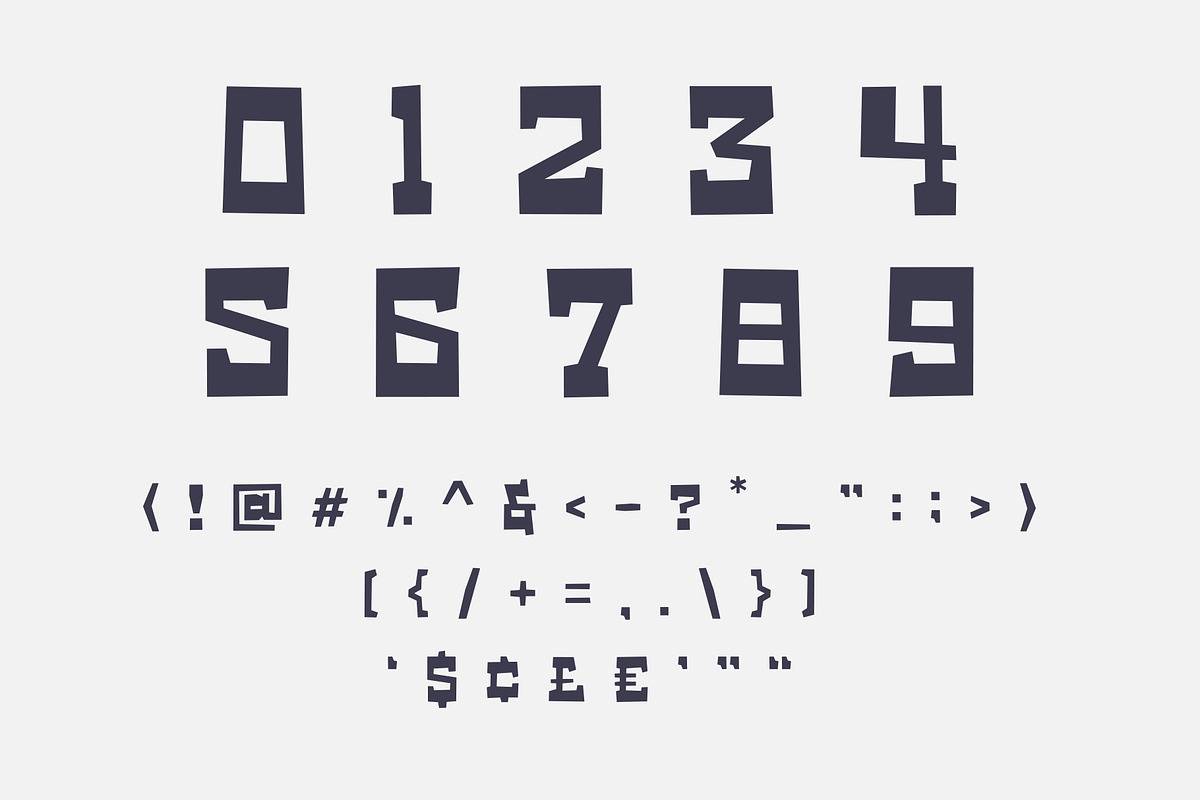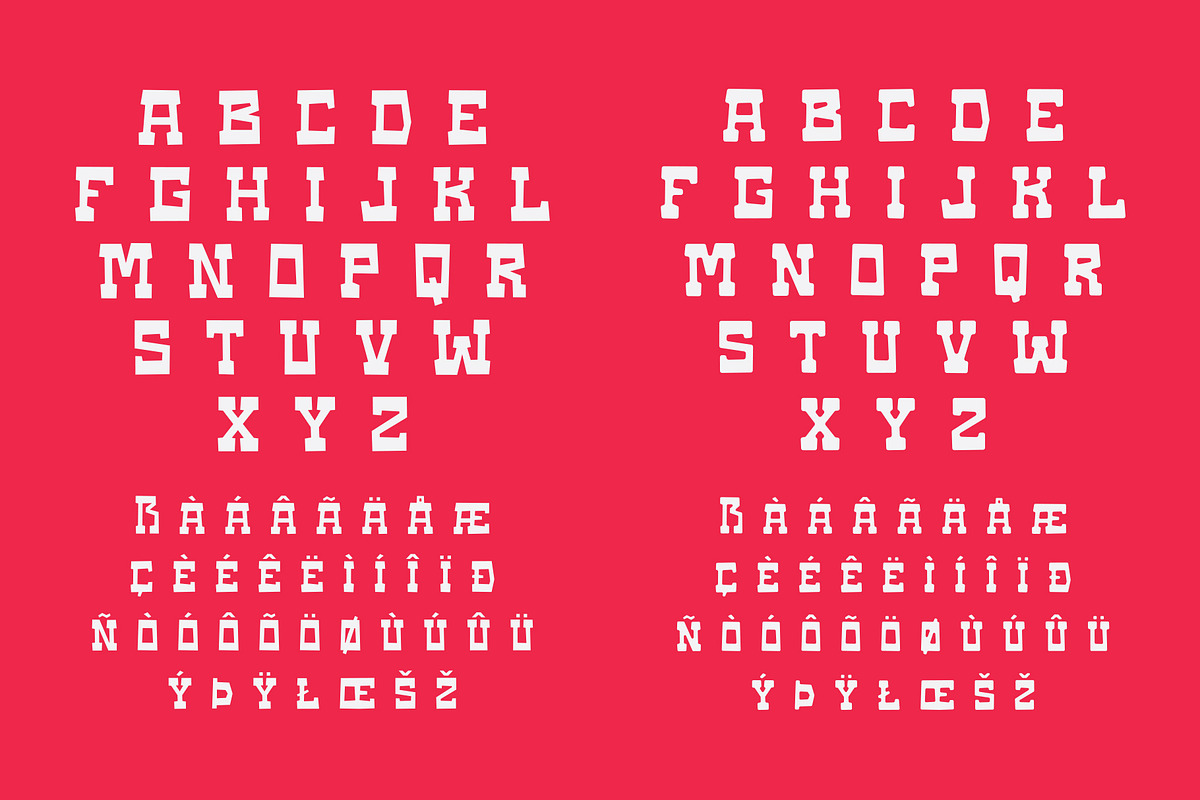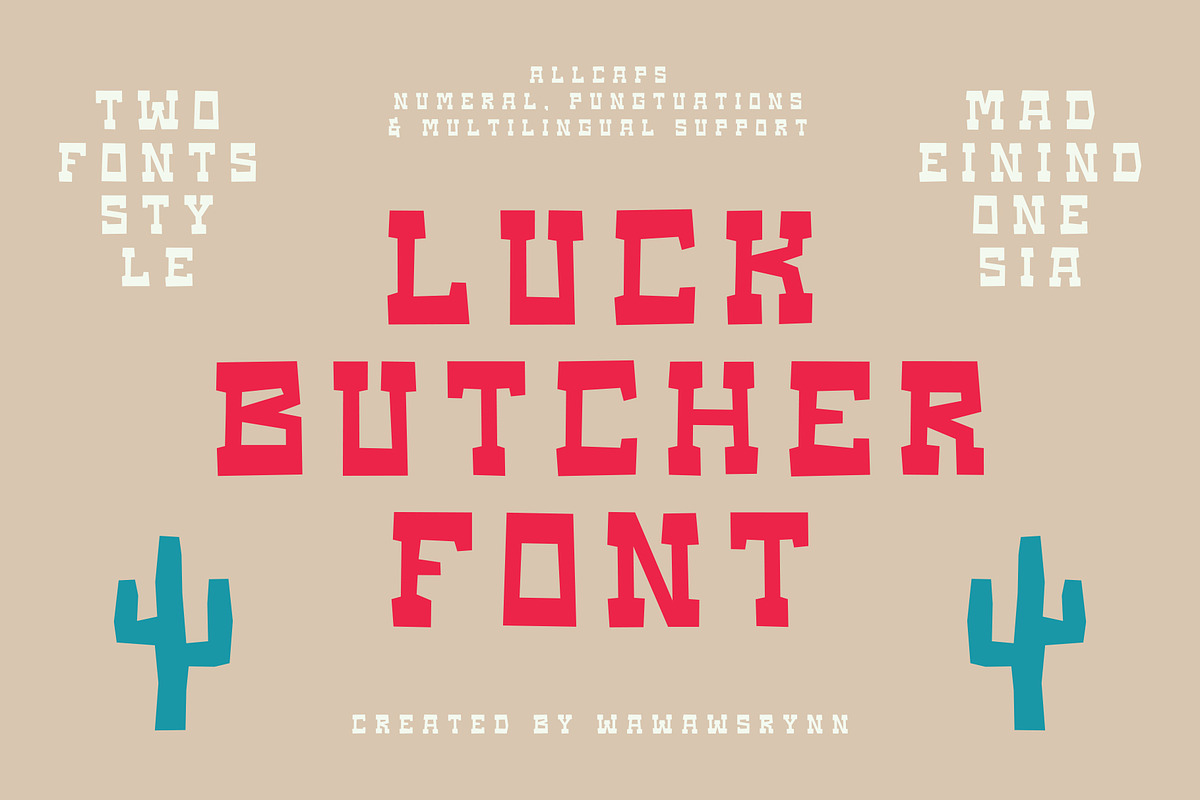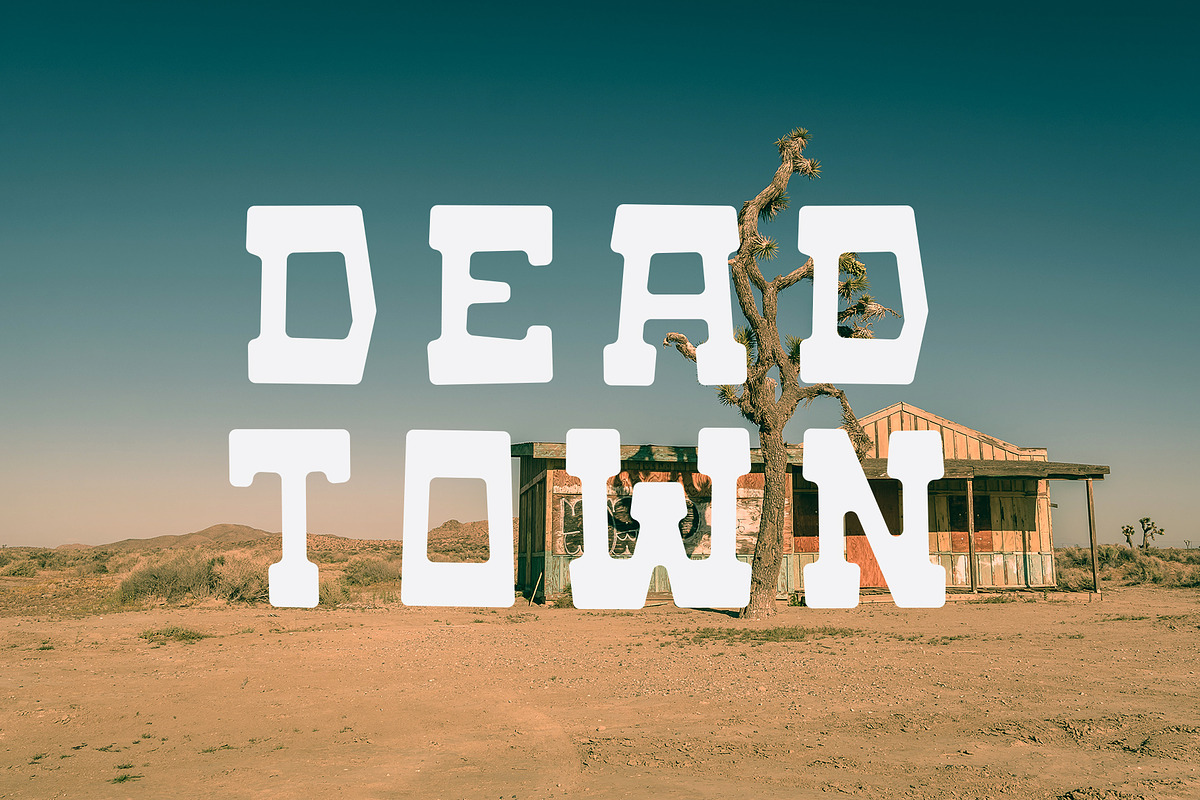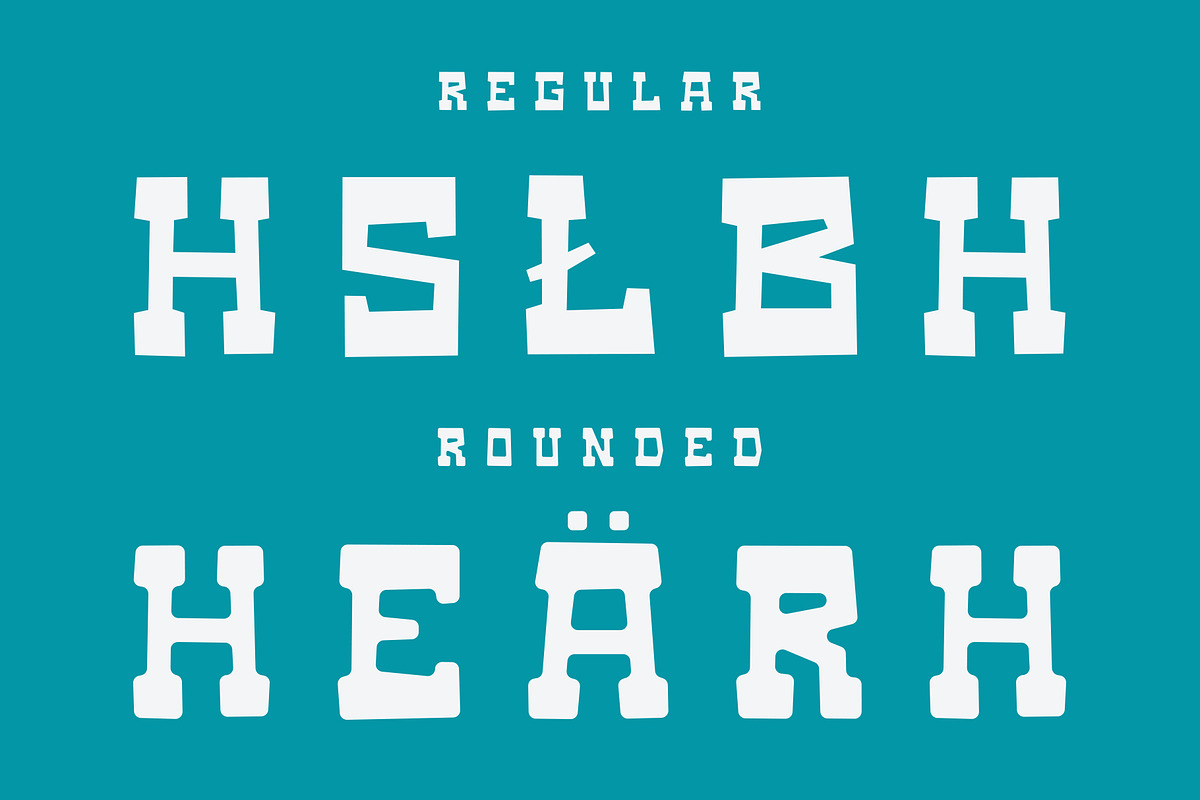
LUCK BUTCHER
LUCK BUTCHER Yes, that's right, Western is the inspiration for this font, with my own style and exploring some shapes on it. I hope you like this style which is a little idealistic. :)
I have two style
- LUCK BUTCHER Regular ( that's is with the straight shape )
- LUCK BUTCHER Rounded ( ya, you can see that :) )